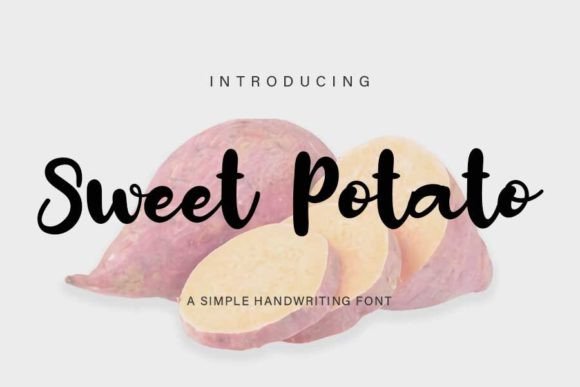
Step into the world of sophistication and elegance with Sweet Potato Font, an exquisite script calligraphy creation by the talented Merry Joana. This font exudes charm and grace, captivating the hearts of designers and typography enthusiasts alike. Its enchanting curves and dynamic strokes make it a perfect choice for projects that demand a touch of timeless beauty.
Unleash your creativity with Sweet Potato's versatile personality. Its bouncy and bold style adds a playful charm to wedding invitations, greeting cards, and social media posts. Create eye-catching logos, memorable branding materials, and stunning website headers with its elegant yet modern appeal. Sweet Potato is the ultimate choice for expressing your individuality and style.
Transport yourself to a world of warmth and comfort with Sweet Potato. Its inviting nature makes it ideal for creating personalized gifts and home décor. Imagine adorning mugs, tote bags, and t-shirts with heartfelt messages brought to life by Sweet Potato's captivating charm. Let the joy of creativity flow as you explore endless possibilities with this versatile font.
Embrace the Sweet Potato difference and elevate your designs to new heights. Step away from the ordinary and embrace the extraordinary with this exquisite font that promises to captivate and inspire. Its remarkable ability to transform the mundane into the magnificent makes it a must-have for any font collection.
Indulge in the beauty and versatility of Sweet Potato Font, a creation that will leave a lasting impression. Its timeless elegance and endless possibilities make it the perfect choice for designers seeking to create designs that connect with hearts and minds. Experience the joy of creating with Sweet Potato and unlock a world of visual delight.